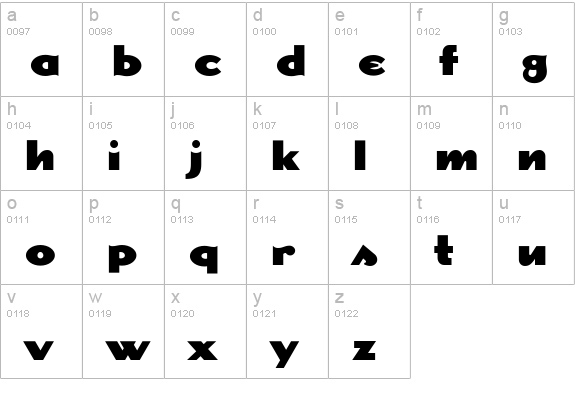
Dogma-Black is a maximum-weight, dramatic variant in the Dogma typeface family \xE2\x80\x94 well suited to maximum-impact headlines, posters, and packaging.
Dogma-Black font is a bold and striking typeface that exudes power and sophistication. Its sharp edges and clean lines make it perfect for creating strong and impactful designs. The font's modern and edgy style is sure to grab attention and leave a lasting impression. What makes Dogma-Black font even more appealing is that it is available for free download at FontsMarket.com. This means that you can easily access this stunning font and use it in your projects without any cost. Whether you're designing a logo, poster, or website, Dogma-Black font will add a touch of elegance and professionalism to your work. Don't miss out on this fantastic opportunity to enhance your designs with Dogma-Black font. Download it for free today and let your creativity shine!